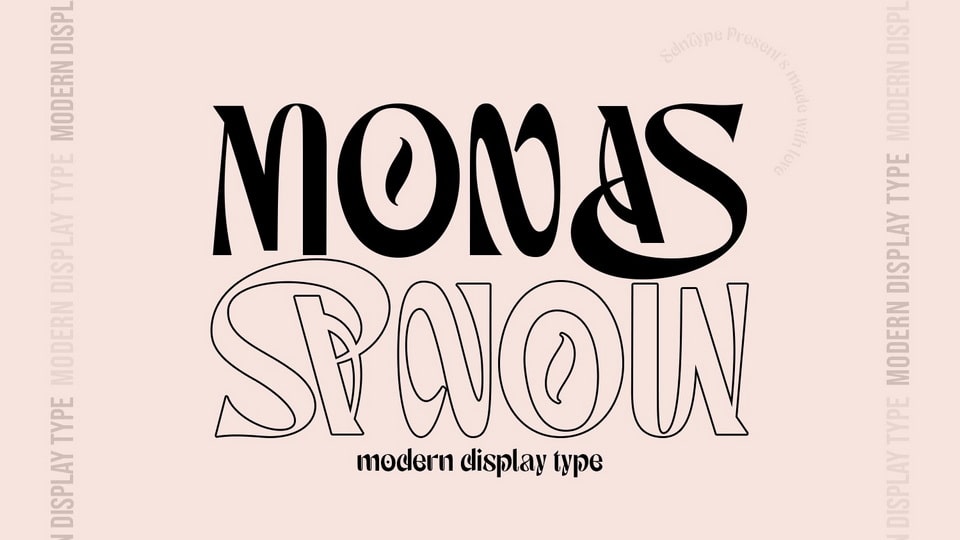
Monas Font
Monas is a modern and stylish display font with unique personality and eye-catching look. Use this font for any branding, product packaging, invitation, quotes, t-shirt, label, poster, logo etc.